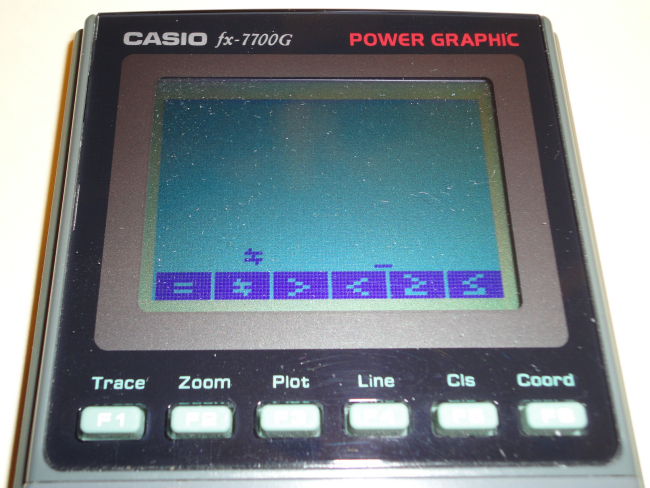
Hahaha, this is a great classic with a funny name! 9/10!
@ADL - Thanks for the kind words! While changing the batteries, I found a few new characters I hadn't noticed before - hence, the updates. As I don't use all of the calculator's functions, I know there are still a few missing characters lurking about in the circuits somewhere...
I thought of trying a similar exercise with the calculator of my young days ... but the abacus doesn't use a font!
Nice one GM. 10/10
@p2pnut -- Ha ha! True, but you could certainly use FontStruct to make a dingbat font of Abacuses / Abaci. Each glyph could have the beads in various positions representing different numerical values.
Cool. But are you sure that the “≠” is the right way around?
@TH3_C0N-MAN - Oddly enough, it is.  This inequality is used in the programming portion for value/variable comparisons, and for some reason, they made it as =\= instead of the traditional =/=.  It's also the same on the menu button (see attached picture):
Hmm. It’s not like that on mine.
@TH3_C0N-MAN - My fx-7700G model is 30 years old.  I'm sure Casio corrected this 'error' long before you got your fx-9750GII.  ;^)